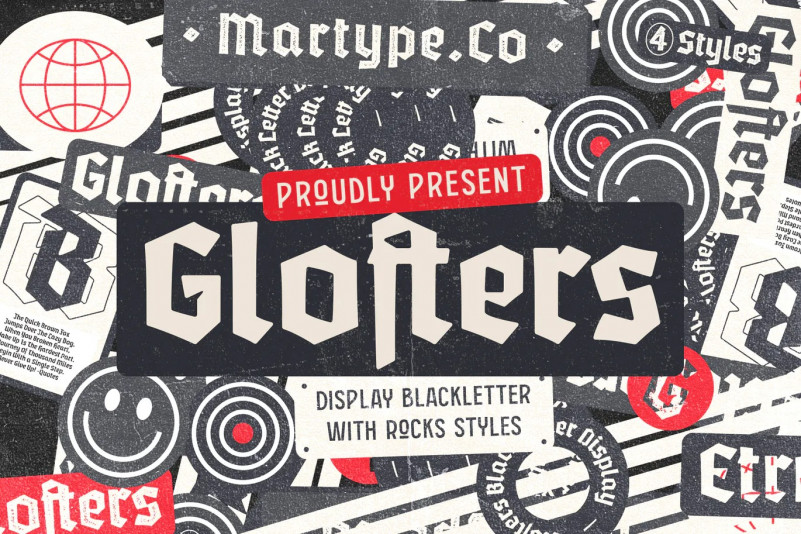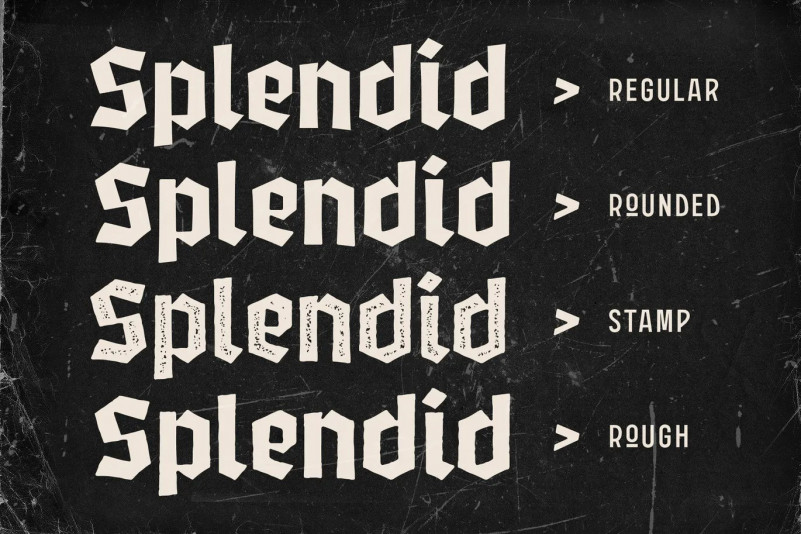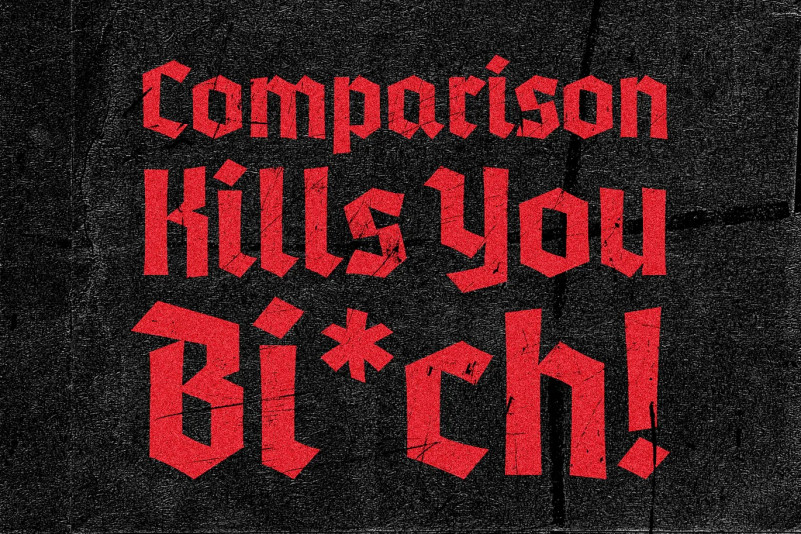
Glofters Font
Introducing Glofters a display blackletter comes with 4 styles to make it more useable in every design taste, this fonts include alternates and ligature to complete the mix and match your design. Perfect for Poster Headline, Music Label, Logotype, Logo, Merch Design and etc.